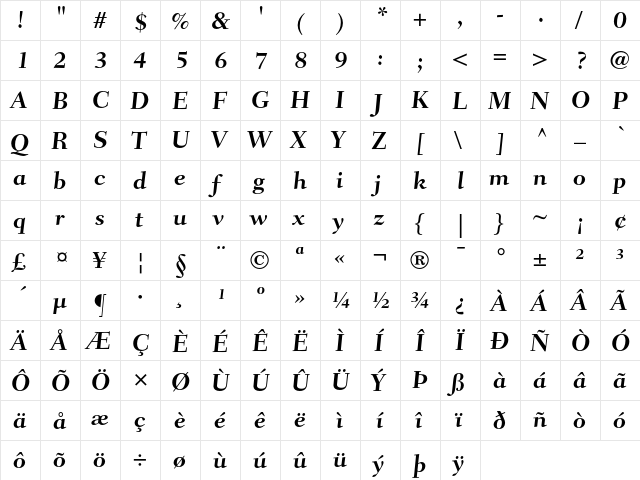
Fairfield LH 75 Caption Bold
Design Context for Fairfield LH Typeface
Fairfield LH offers clean, dependable letterforms without strong stylistic allegiance, making it a practical choice for designers who need flexibility. The heavy weight commands attention and anchors typographic hierarchies.